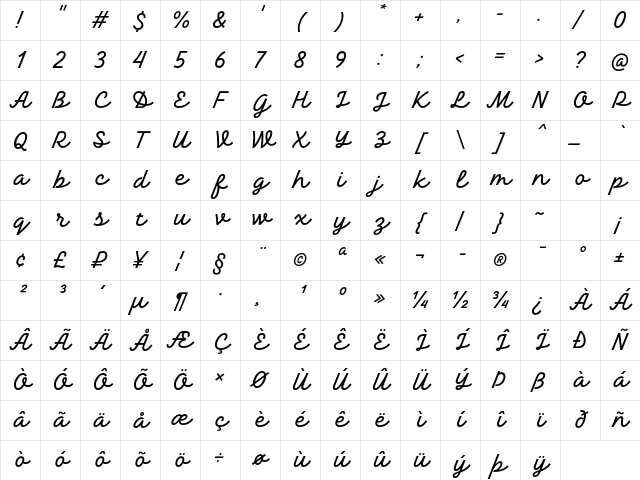
Complete TT Backwards Script Trl Regular glyph index. Displaying only characters natively supported by TT Backwards Script Trl Regular font.
TT Backwards Script Trl flows with the natural rhythm of handwritten lettering, making it ideal for designs that call for warmth and personal expression.
Font Pairing: Combine TT Backwards Script Trl with a simple geometric sans for maximum contrast - the tension between flowing curves and clean structure is a classic typographic pairing.
Pro Tip: Use TT Backwards Script Trl for short runs of text - names, titles, or taglines. Extended body copy in script faces tires the eye quickly.